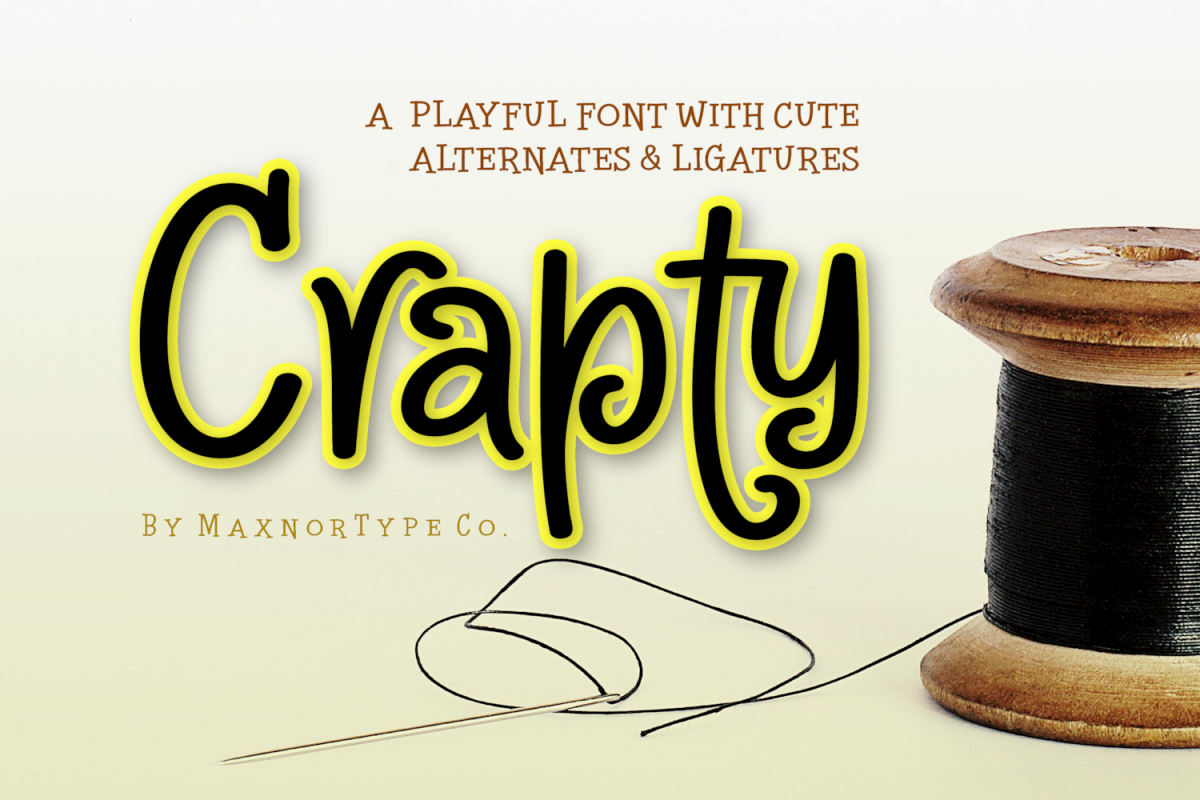
Crapty - a Playful Font with Cute Alternates & Ligatures
Introducing Crapty, a fun and creative font enriched with cute alternates & plenty of ligatures. It can be used to design your craft, t-shirt, watermark, social media, quotes, greeting cards, and much more!
This font contains uppercase, lowercase, numeral, and punctuation, with multilingual support, uses OpenType features: Stylistic Alternates, Contextual Alternates, and Ligatures!